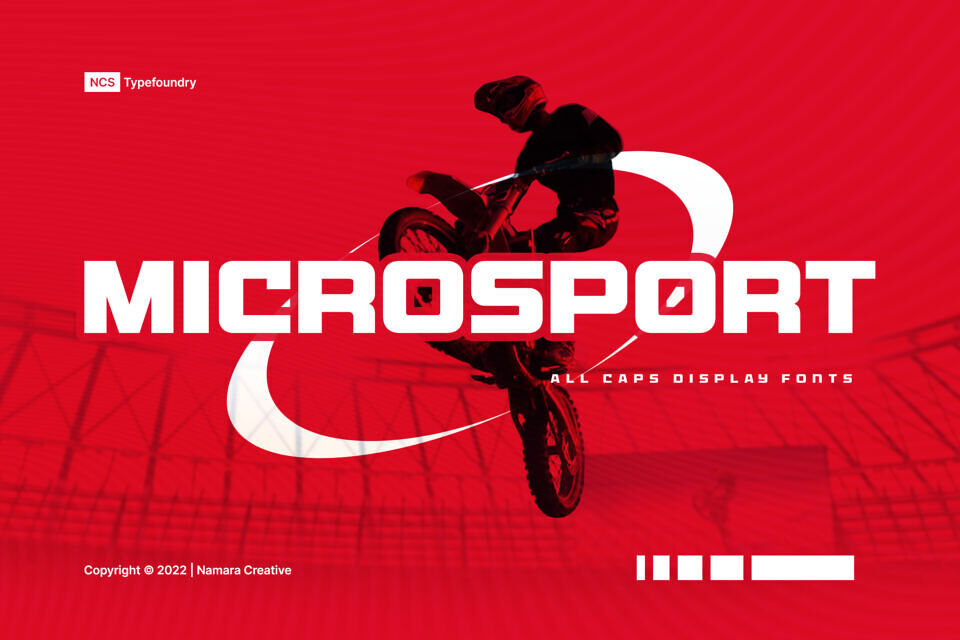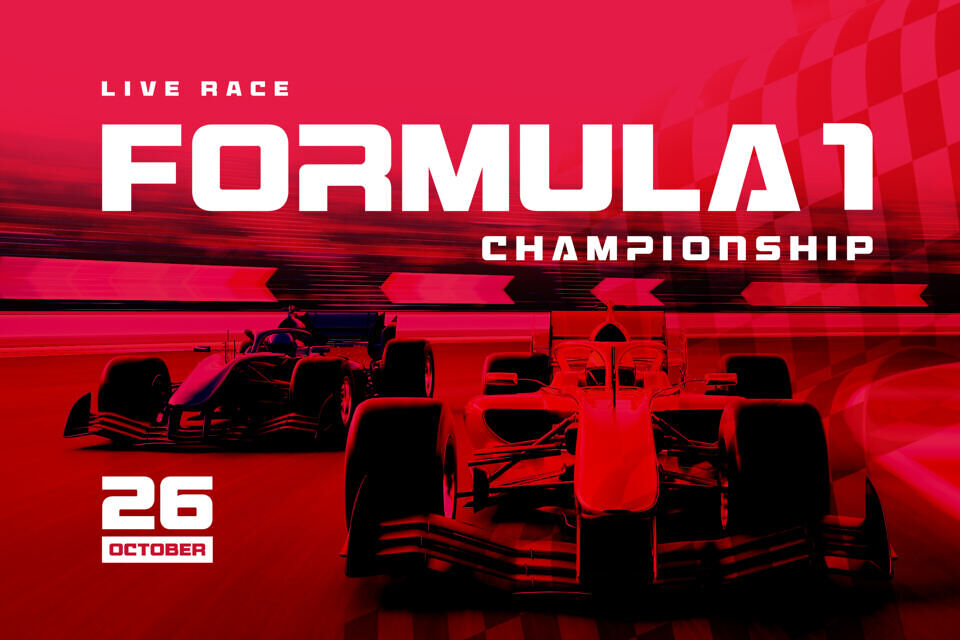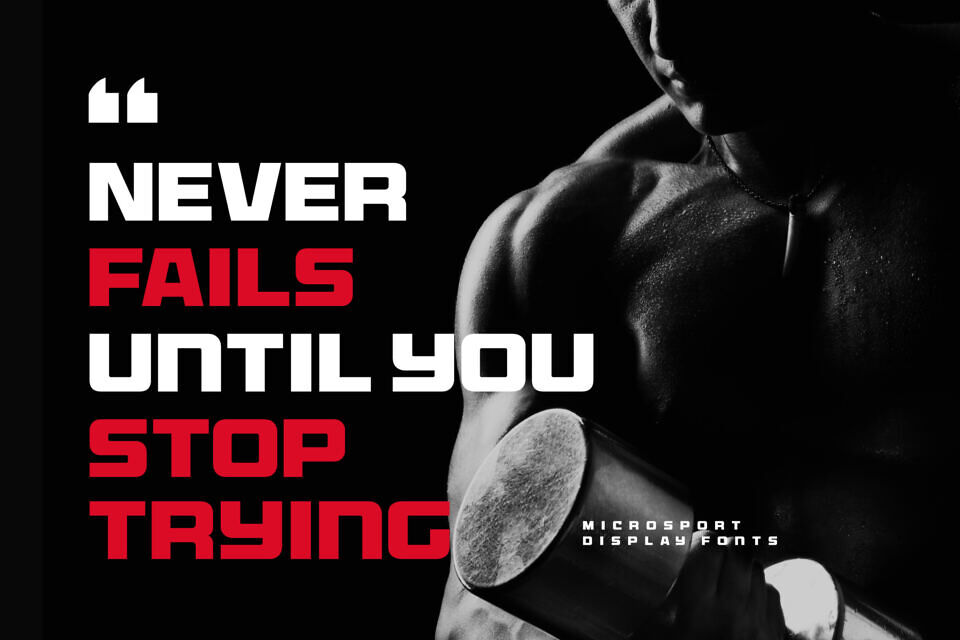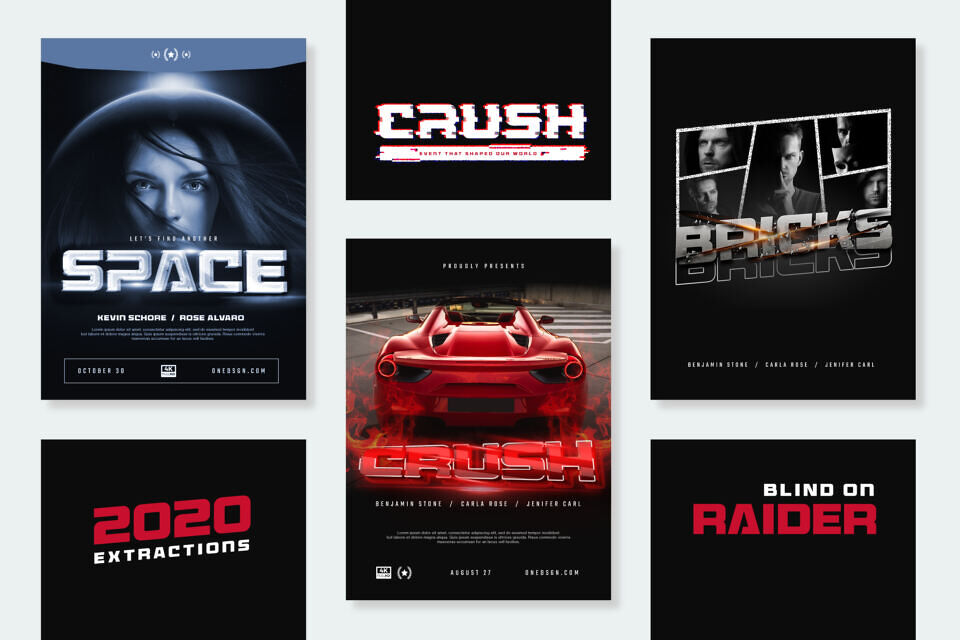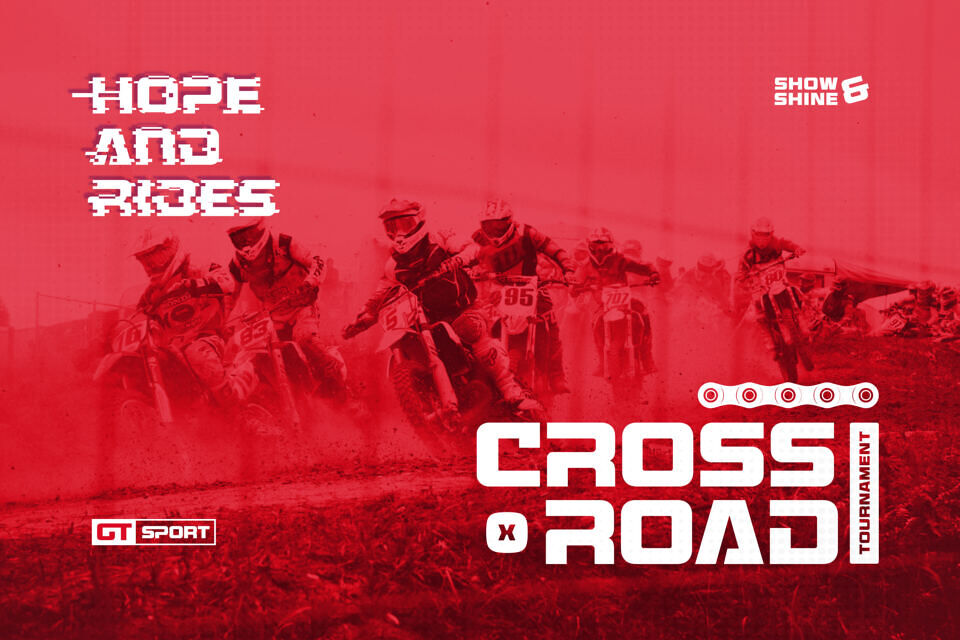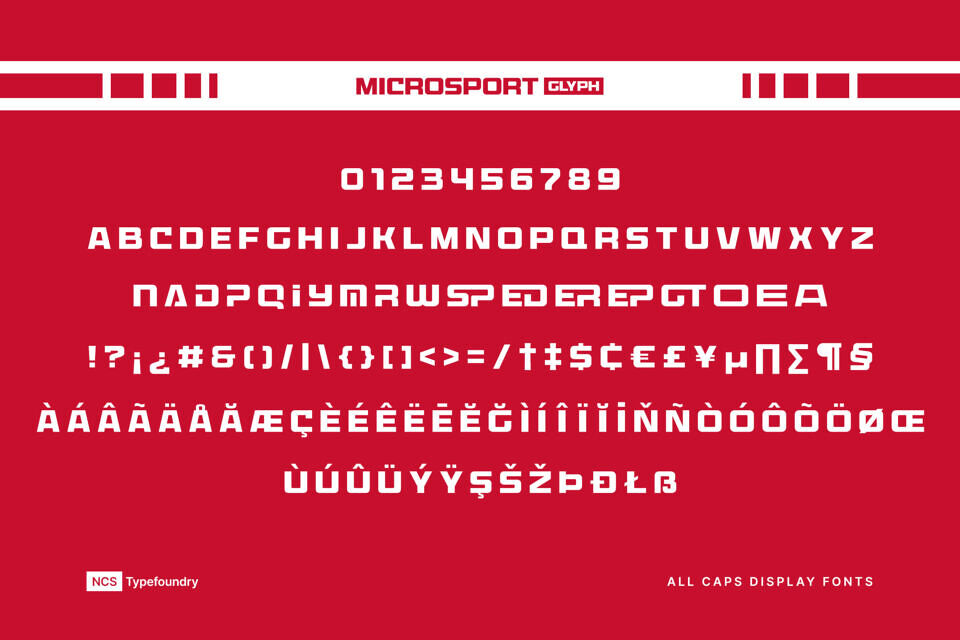
Microsport Font
Microsport is a bold, modern sans-serif display font with a sporty and techno-inspired style. Designed to create a strong visual impact, it’s ideal for headlines, branding, advertising, packaging, and sports-related designs. Its sharp, dynamic shapes and clean structure give projects an energetic, contemporary feel while maintaining readability.
Designed by: Namara Creative Studio